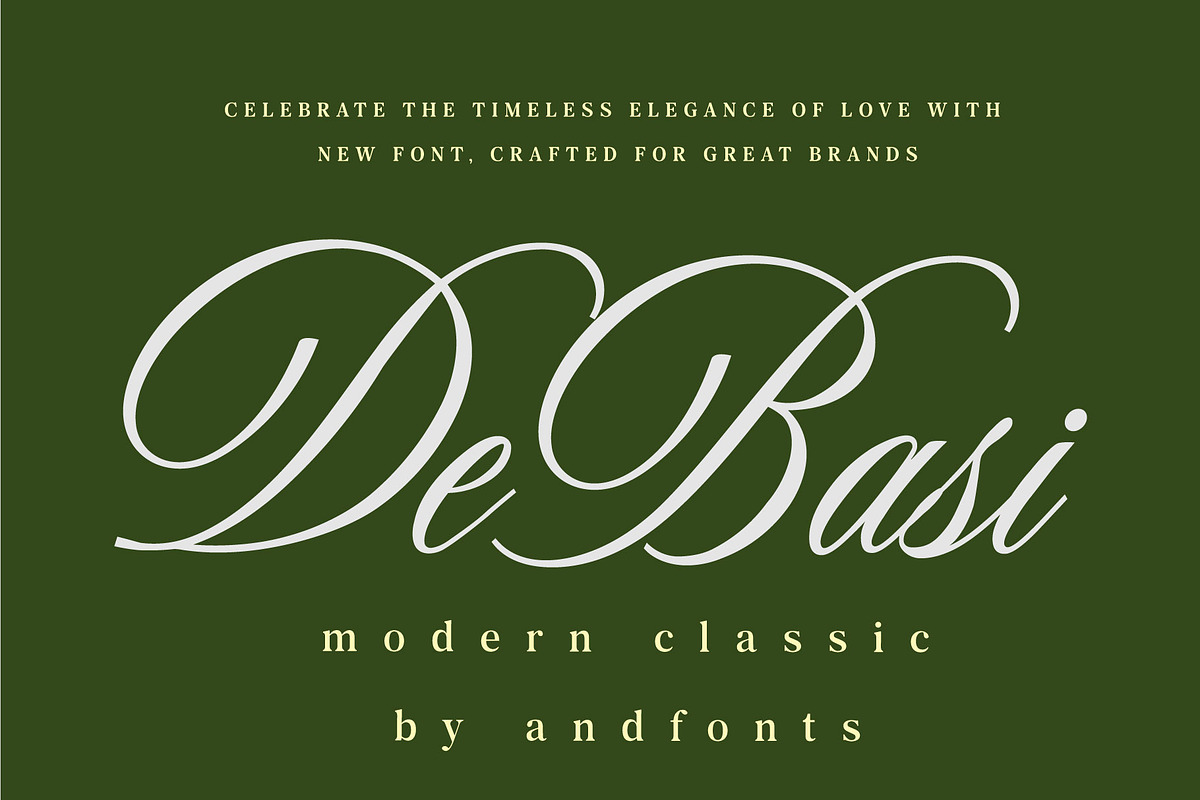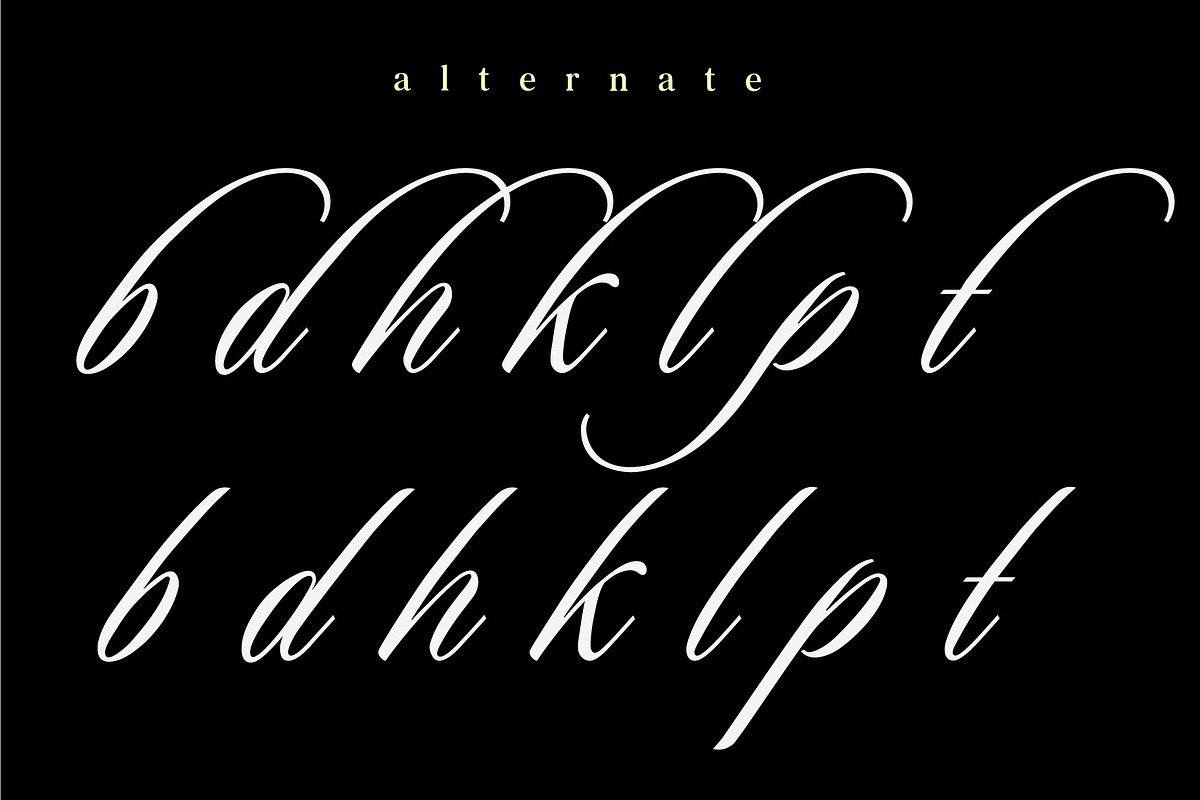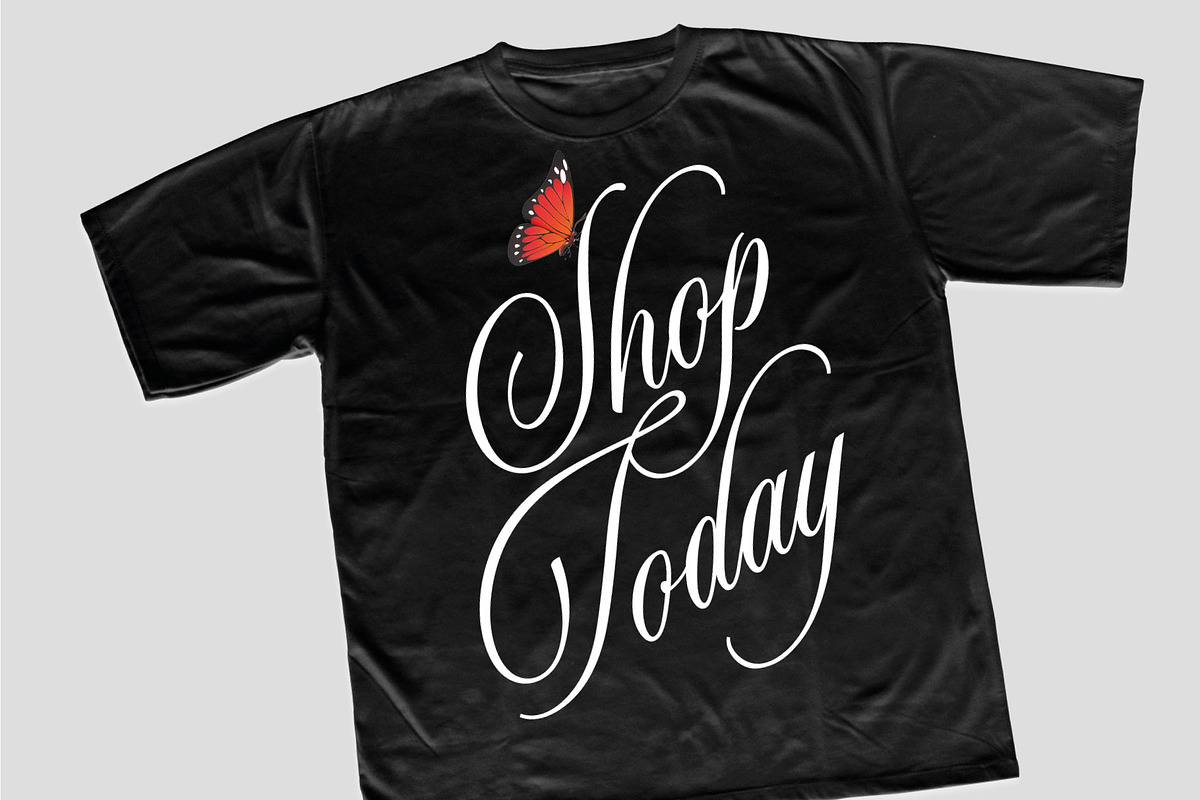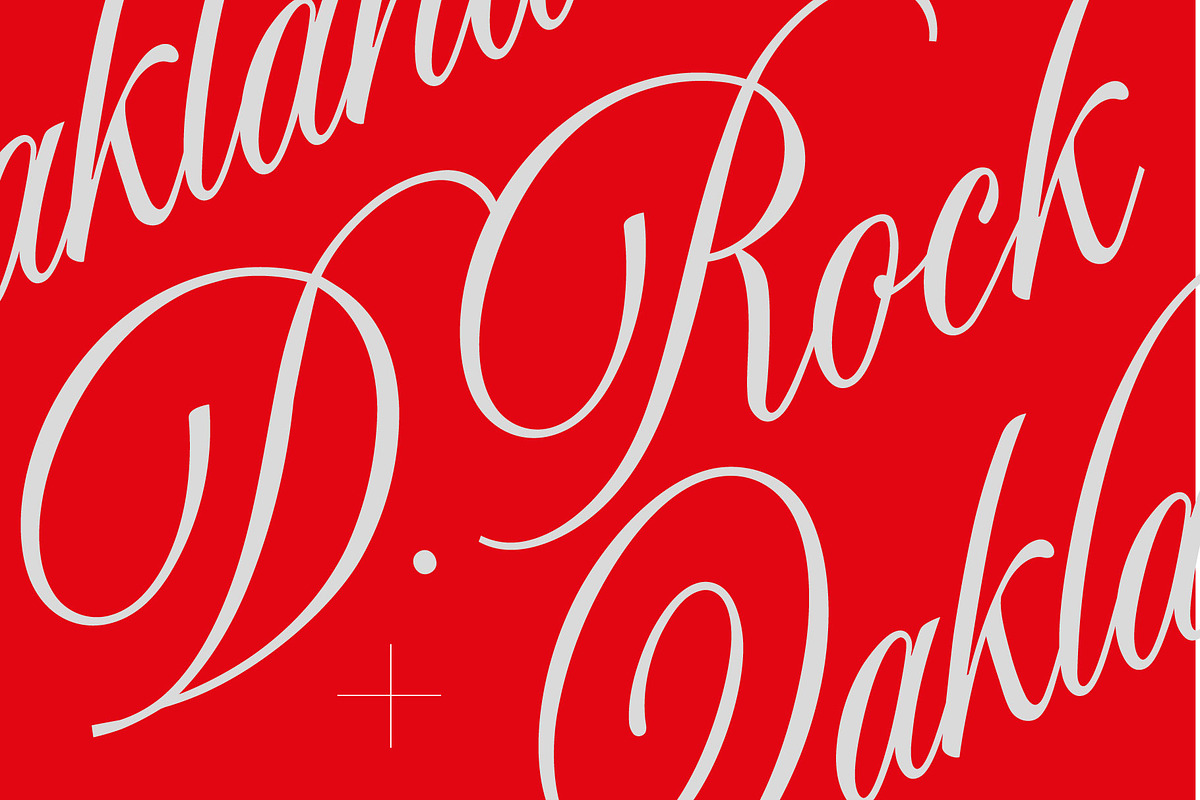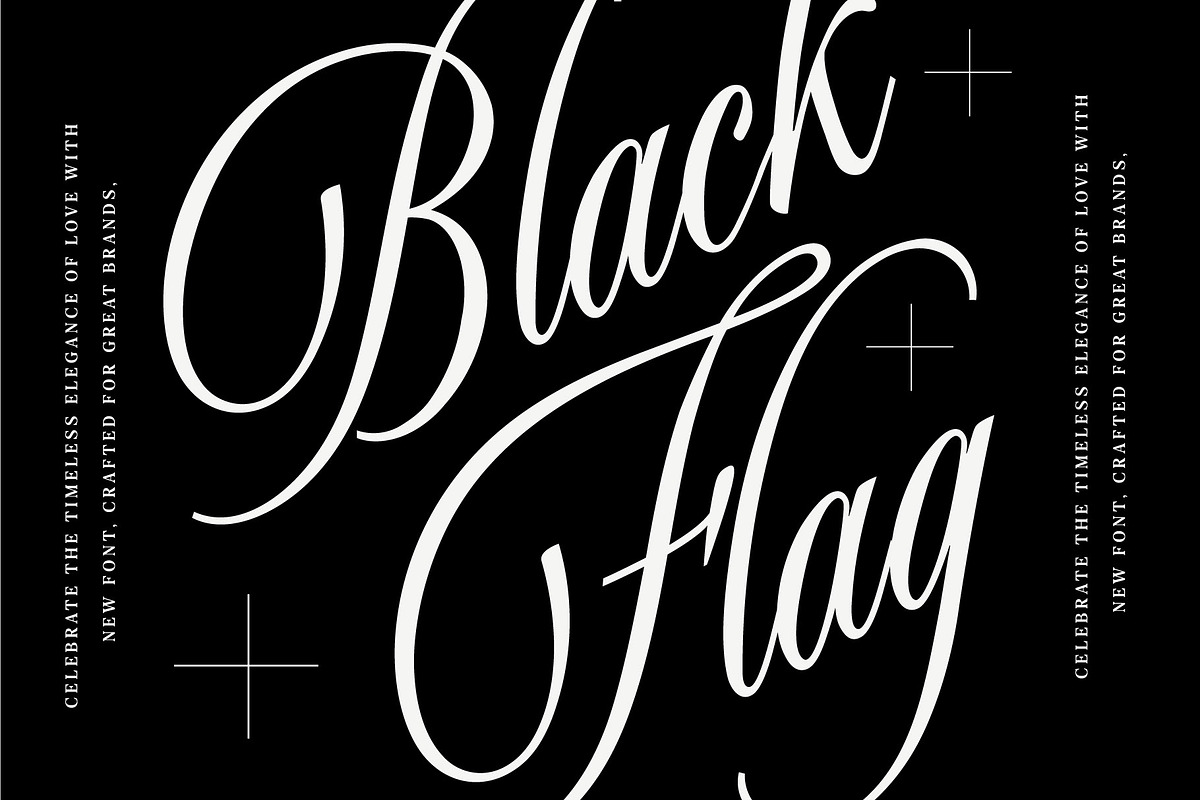
DeBasi — Modern Calligraphy Font
DeBasi — Modern Calligraphy Font.
DeBasi is a modern calligraphy typeface that brings timeless elegance into a contemporary style. Designed with graceful curves, refined strokes, and a sophisticated rhythm, DeBasi combines the beauty of traditional calligraphy with a fresh, modern character.
Its flowing letterforms and expressive details make DeBasi perfect for wedding invitations, logos, branding, packaging, stationery, greeting cards, fashion projects, beauty products, editorial designs, and social media graphics.
DeBasi includes uppercase and lowercase letters, numerals, punctuation, and a wide selection of symbols, giving you the flexibility to create beautiful and distinctive typographic compositions.